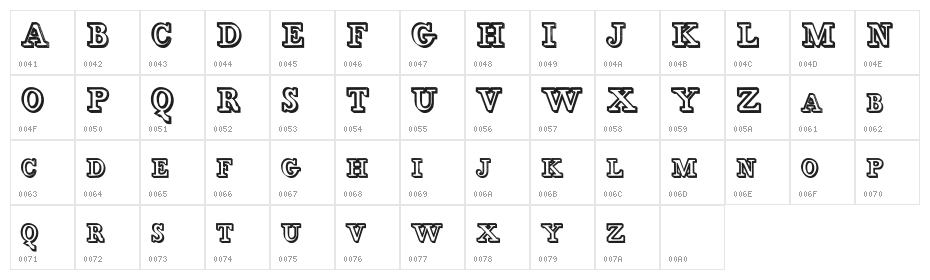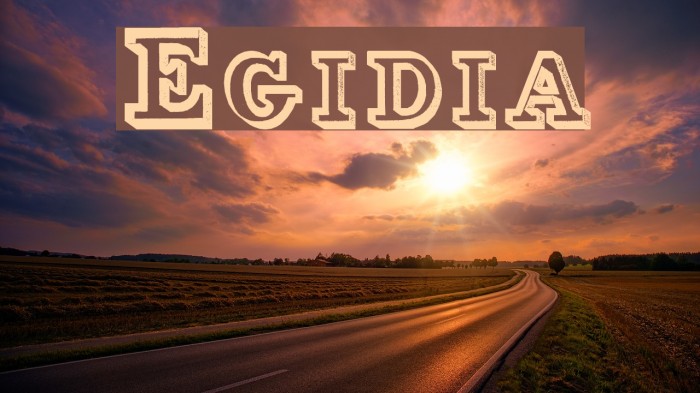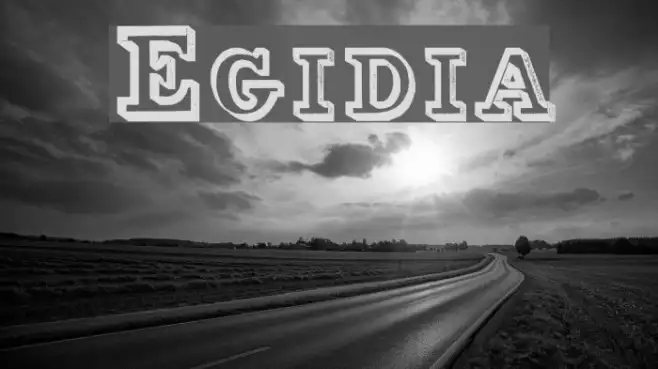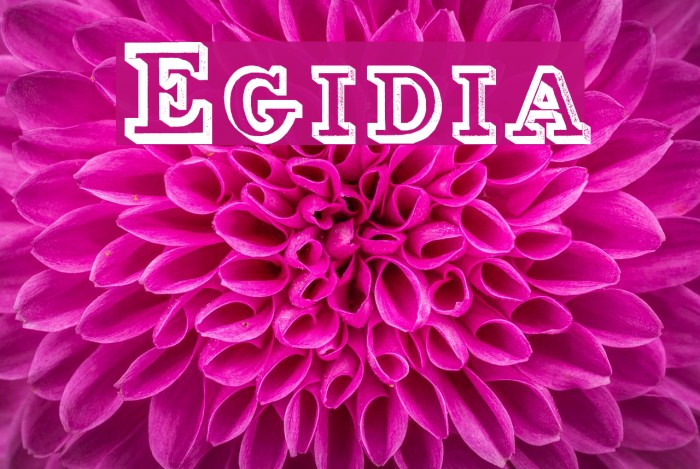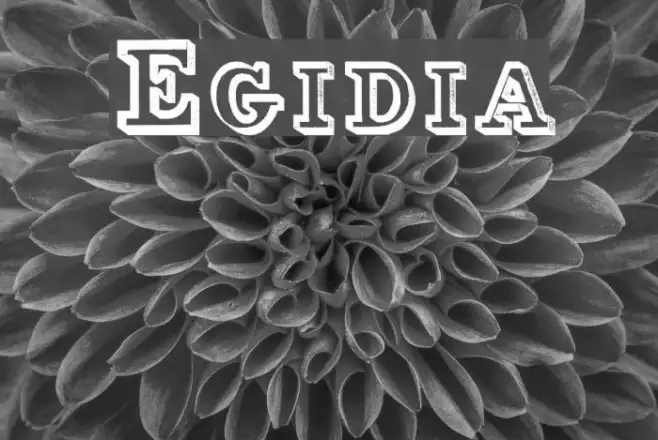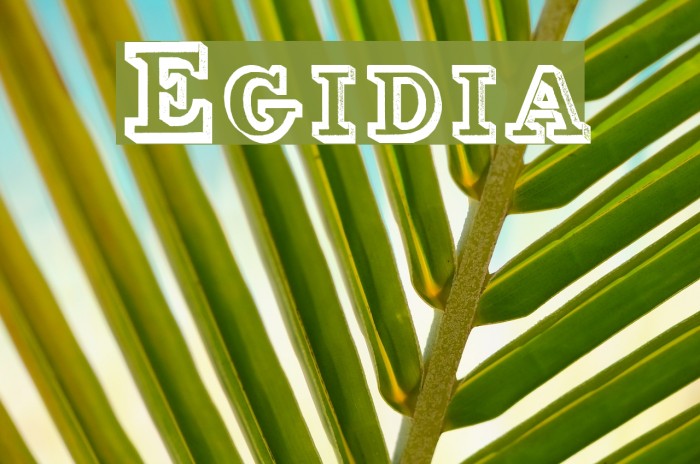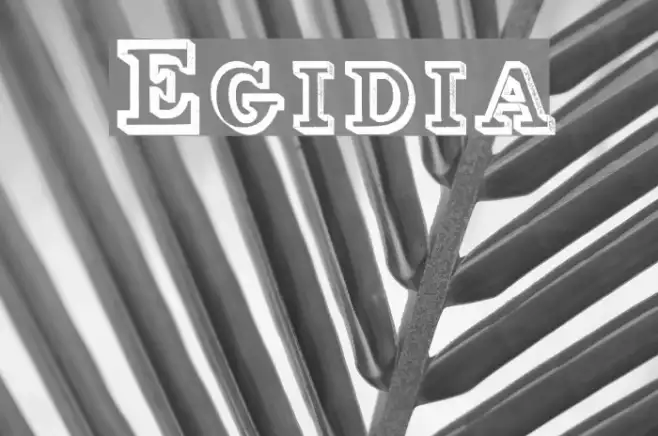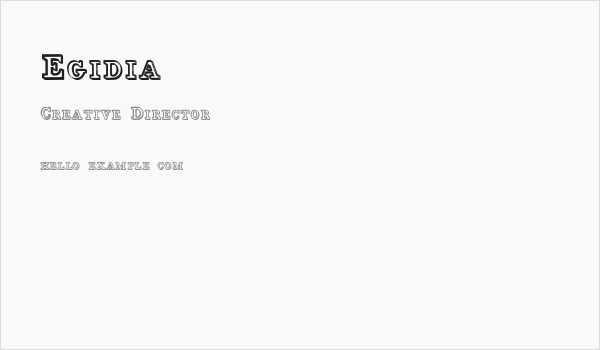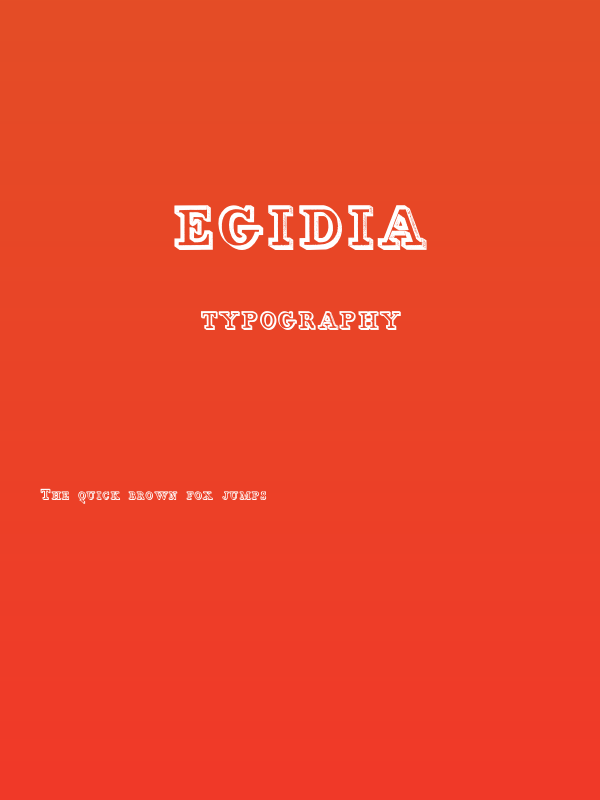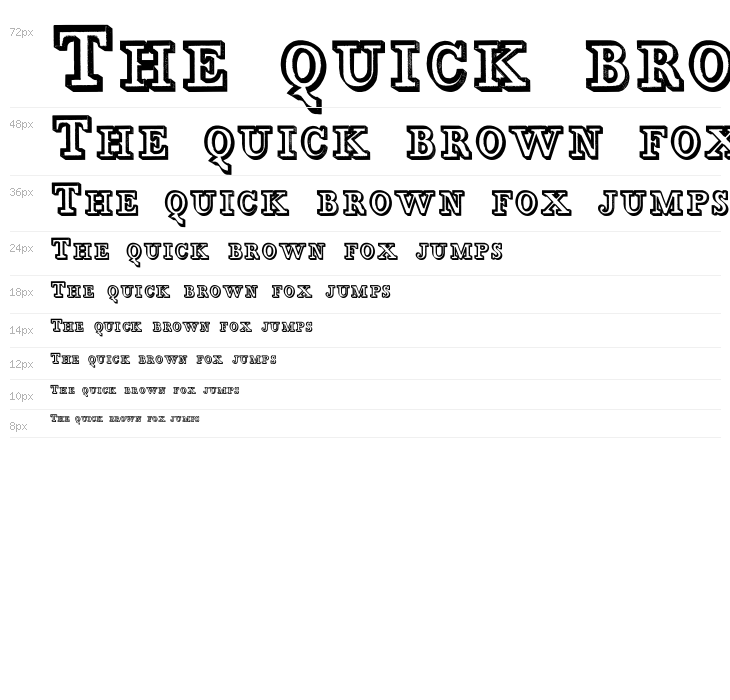
Egidia Font
Egidia Description
This font features a bold, decorative style with a strong presence. Each character is outlined, creating a striking contrast between the thick strokes and the inner space. The serifs are pronounced, adding a classic touch to the overall modern design. The uppercase letters are uniform in height, with a consistent width that ensures readability. The font's unique style is ideal for making a statement, with its bold outlines and structured form. It is versatile enough to be used in various design contexts, from posters to branding materials.
| Proposed Projects | Ideal for posters, branding, headlines, and any project requiring a bold statement. |